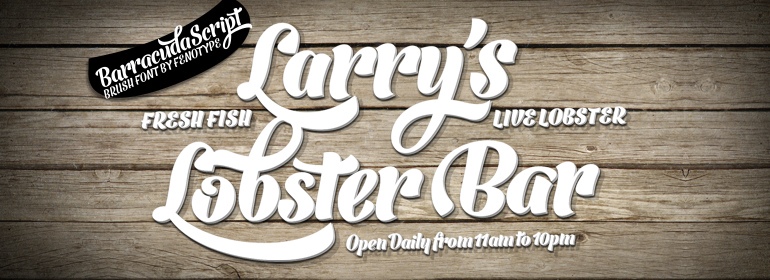
Barracuda Script Font
Barracuda Script Font is perfect for bold branding projects, dynamic logo design, energetic sports marketing, adventure company branding, powerful headlines, action-oriented campaigns, masculine product packaging, automotive graphics, fitness industry materials, and high-impact promotional designs.
What makes Barracuda Script Font so exciting is its aggressive elegance that combines powerful visual impact with sophisticated script craftsmanship. This commanding typeface embodies strength and determination while maintaining refined execution, creating typography that demands attention and communicates confidence and authority.
The Barracuda Script Font family includes regular and bold weights, featuring dynamic swashes, powerful flourishes, aggressive ligatures, and commanding design elements that provide designers with comprehensive tools for creating bold and memorable typography that captures the essence of strength and sophistication.
Unleash powerful elegance with Barracuda Script Font Free Download, a boldly crafted script typeface that brings commanding presence to contemporary design projects. This exceptional font embodies the perfect fusion of aggressive confidence and refined sophistication, making it an ideal choice for brands that need to communicate strength, determination, and premium quality.
The dynamically flowing letterforms of Barracuda Script Font showcase bold character with aggressive elegance that creates immediate visual impact and memorable brand recognition. Each character displays careful attention to maintaining the powerful energy that defines commanding presence while ensuring sophisticated execution and professional readability. The font's strong curves and confident spacing contribute to its authoritative appearance and premium appeal.
Power brands and dynamic companies consistently choose Barracuda Script Font for projects requiring commanding presence and sophisticated strength. The comprehensive character set includes uppercase and lowercase letters, numerals, extensive punctuation, international accents, and powerful decorative elements that provide complete support for high-impact branding applications and dynamic design compositions.
The commanding versatility of Barracuda Script Font ensures exceptional performance across both traditional print and modern digital platforms. Whether developing powerful brand identities, creating dynamic marketing campaigns, or designing high-impact promotional materials, this remarkable typeface delivers consistent authority that resonates with audiences seeking strength, confidence, and premium quality.